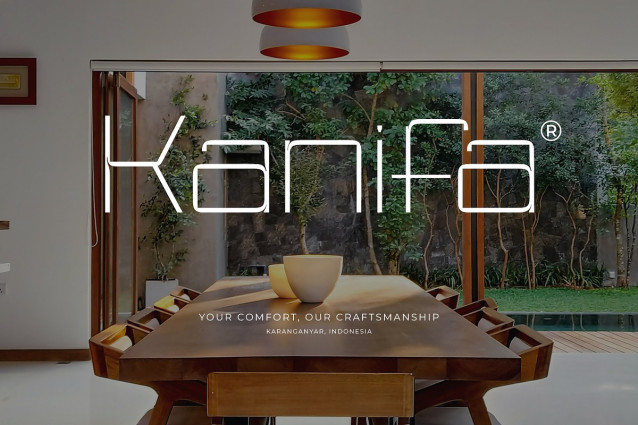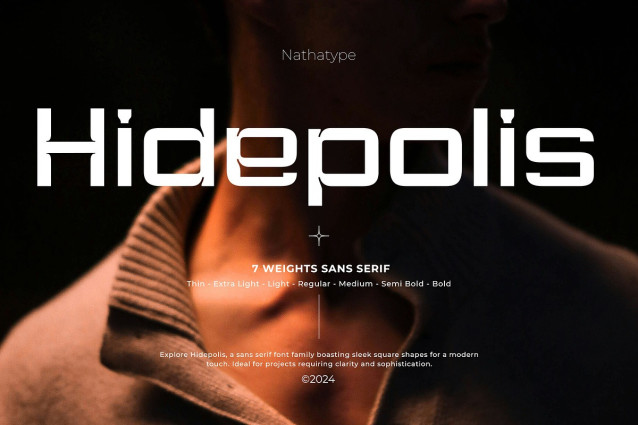
Hidepolis Font
Hidepolis Font, a sleek and versatile sans-serif font family. With seven different font weights to choose from, Hidepolis offers a wide range of options to suit your design needs. Each font weight in the Hidepolisfamily is made in box-shaped design that exudes a sense of strength and stability.
The modern vibes of the font make it perfect for projects that demand a clean and contemporary aesthetic. What sets Hidepolis apart is its versatility and adaptability.